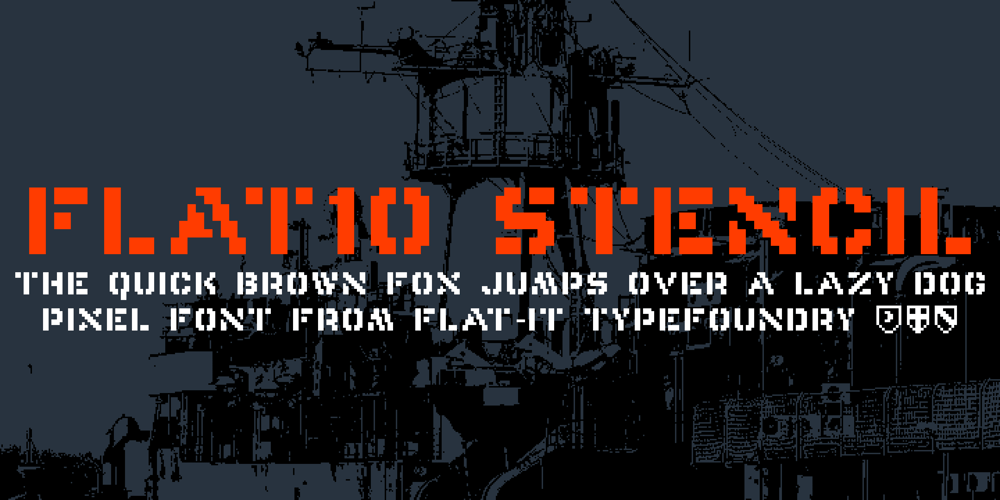
Flat10 Stencil Font Family was designed by Ryoichi Tsunekawa and published by Dharma Type. Flat10 Stencil contains 1 styles and family package options. Stencil pixel font which has rough, tough and masculine impressions. This 8-bit pixel font is designed with respect for 80s game designers and the pixel font pioneers in middle 90s. Use at size 10 pixels or multiples of 10 and anti-alias off is recommended. List of our Pixel Font Project. ·Flat10 Antique ·Flat10 Artdeco ·Flat10 Arts&Crafts ·Flat10 fraktur ·Flat10 Holy ·Flat10 Holly ·Flat10 Segments ·Flat10 Stencil ·Flat20 Gothic ·Flat20 Headline ·Flat20 Hippies ·Flat20 Streamer ·Behrensmeyer Vigesimals ·Civilite Vigesimals